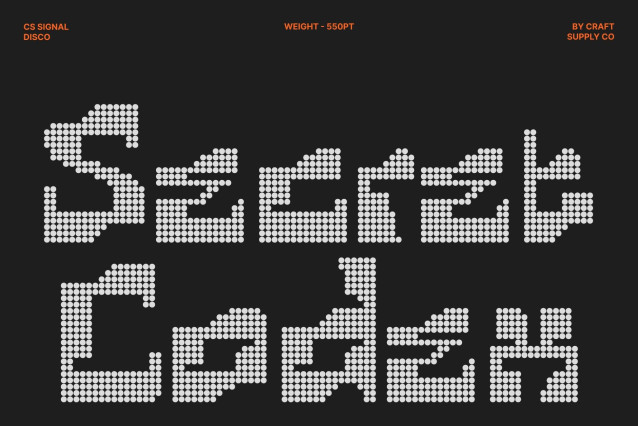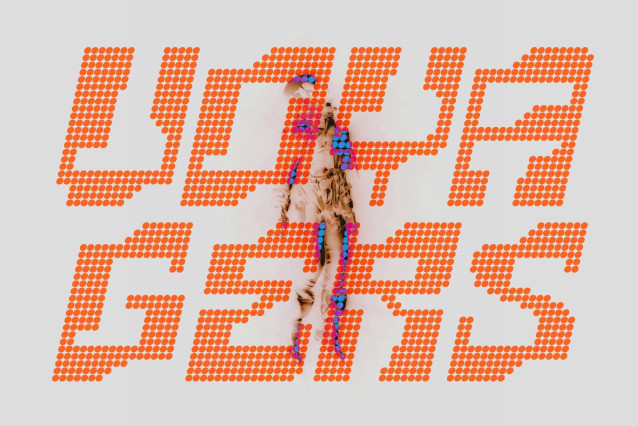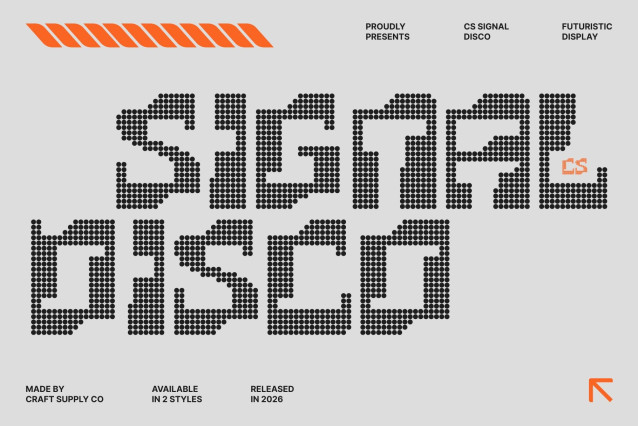
CS Signal Disco Font
CS Signal Disco – Futuristic Tech Display with Electric Dot Energy
Modern Futuristic Style with Disco Spark
This transforms a tech-inspired display font into a glowing dotted spectacle. Built from bold dot patterns, the letterforms echo LED lights, digital signals, and illuminated circuitry creating a futuristic aesthetic that feels vibrant, energetic, and alive.
Irregular Block Structure with Mechanical Edge
The font retains its distinctive irregular block shapes, now enhanced with a disco-style dotted texture. This combination strengthens the mechanical and industrial feel while adding rhythm and motion, making each character look like it’s pulsing with digital energy.
Perfect for Technology and Digital Visuals
Ideal for tech branding, futuristic posters, EDM artwork, gaming graphics, and motion visuals, this font delivers a powerful sci-fi presence. Its glowing dotted structure makes headlines feel dynamic, innovative, and impossible to ignore.